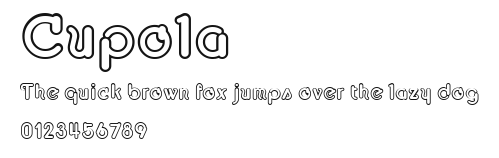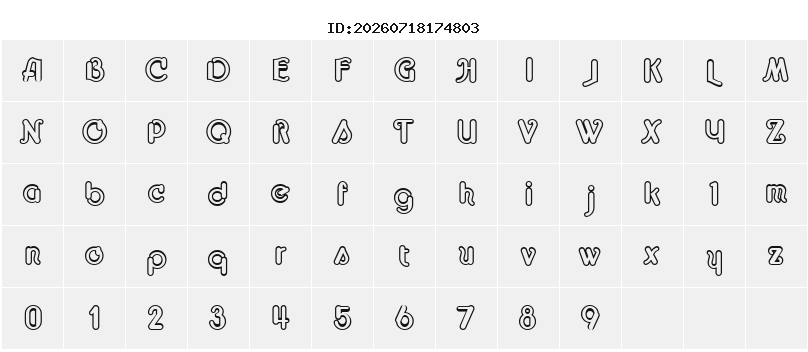
• Font Name: Cupola
• Font Style: Open
• Full Font Name: Cupola Open
• PostScript Name: CupolaOpen
About Cupola.ttf
Cupola.ttf is a modern, elegant sans-serif font designed for ultimate readability and visual harmony. Perfect for branding, headlines, web design, and print materials.